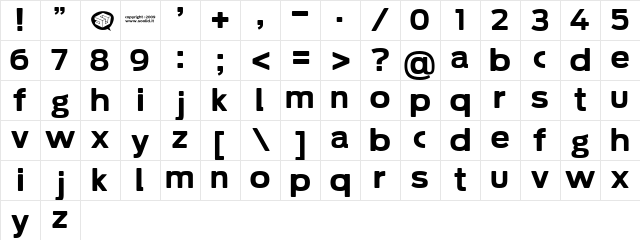
Soolidium Regular
| Foundry | Soolid |
| Designer | Alberto Alberti |
Design Context for Soolidium Typeface
Soolidium offers clean, dependable letterforms without strong stylistic allegiance, making it a practical choice for designers who need flexibility.